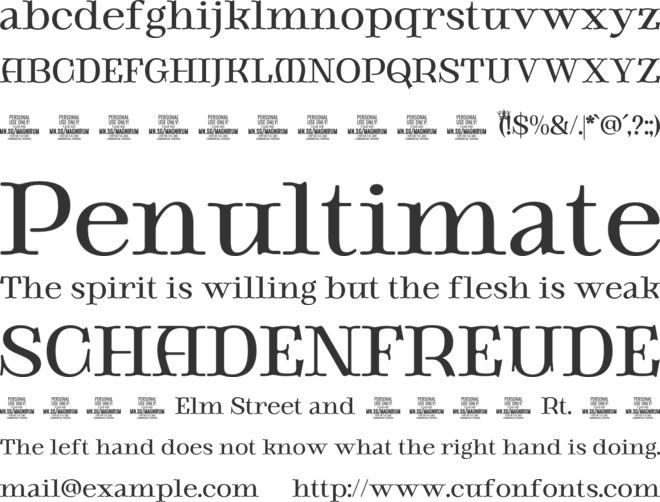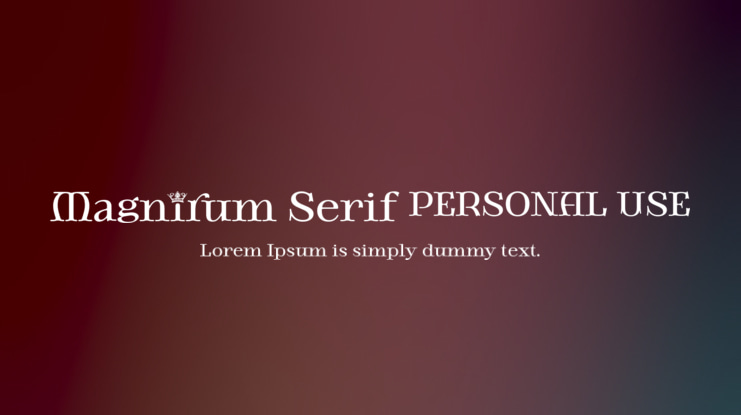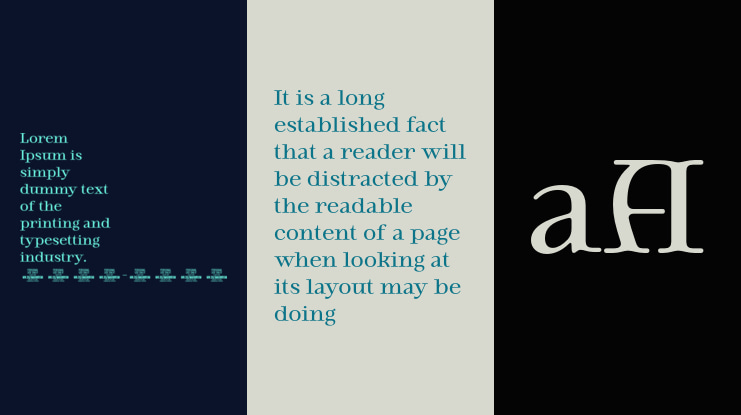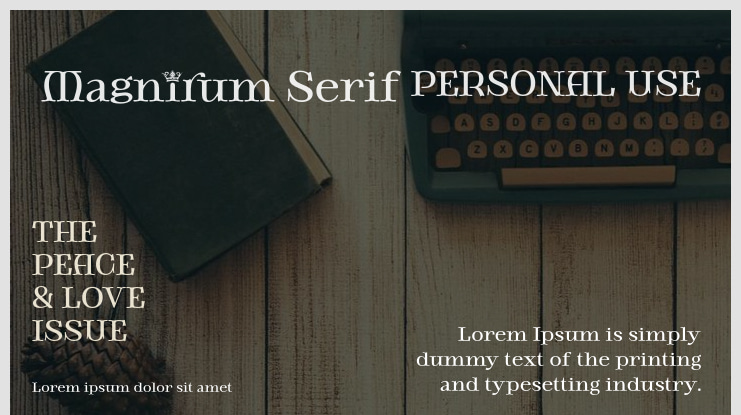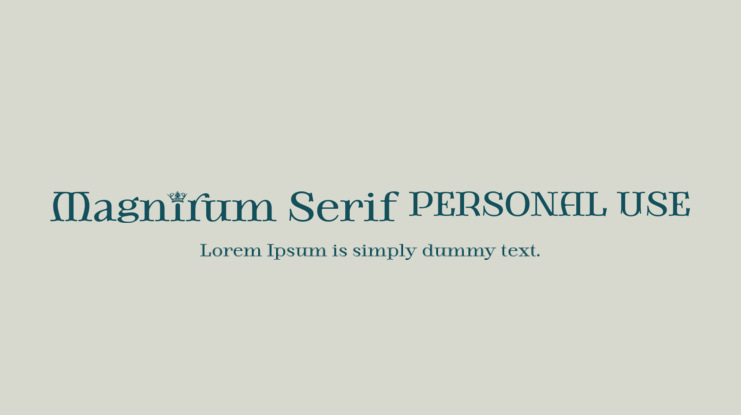
Magnirum Serif PERSONAL USE Font
Magnirum Serif is a serif typeface with a medieval flair. Drawing inspiration from historic typography and medieval design, Magnirum Serif is a timeless creation that exudes beauty and elegance.
Add symbol # after any letter to place a crown on top of it.
Example: Cro#wn